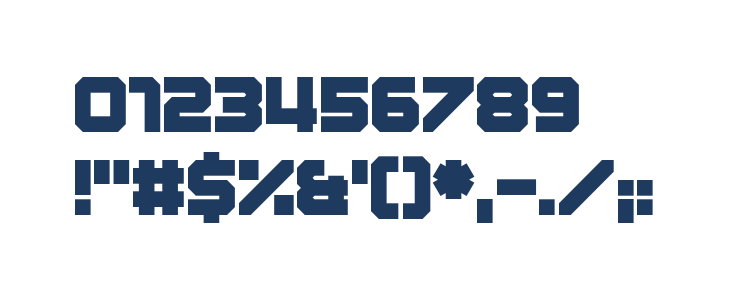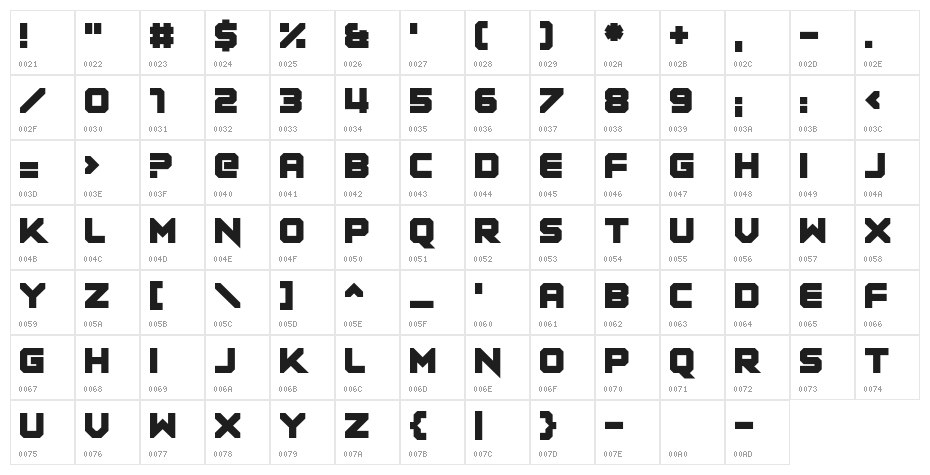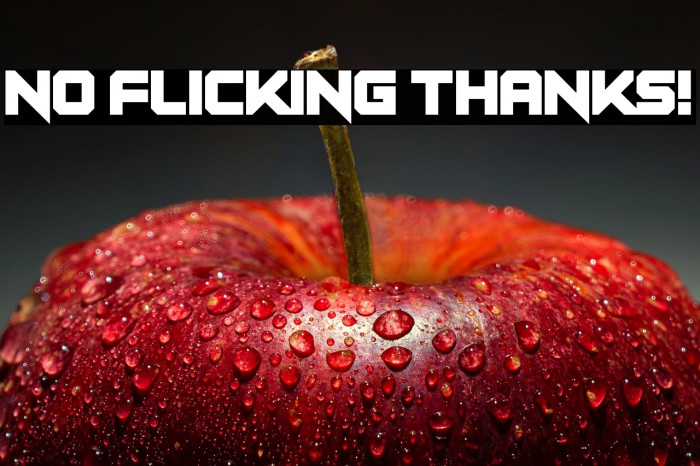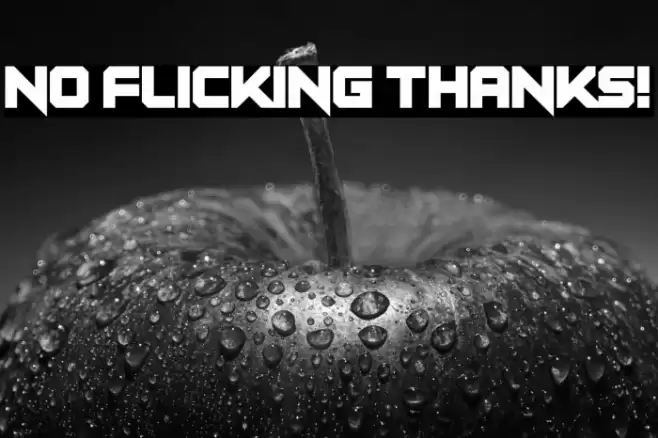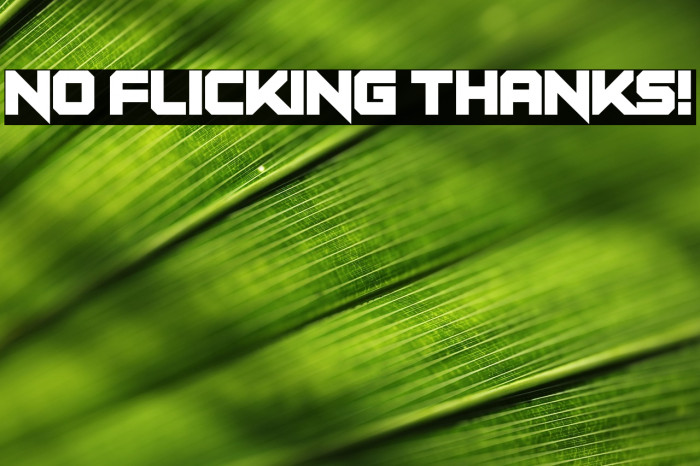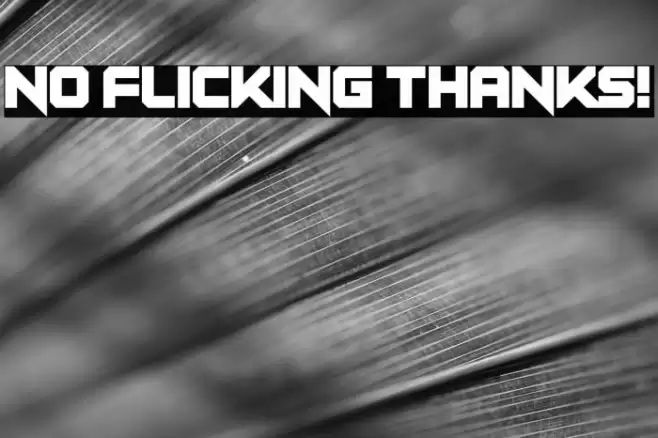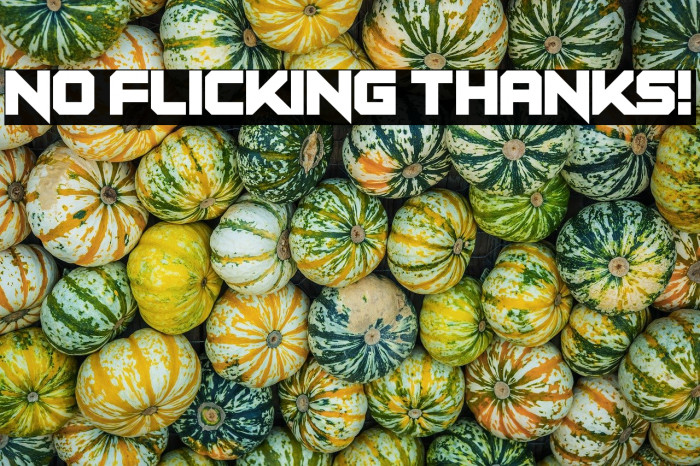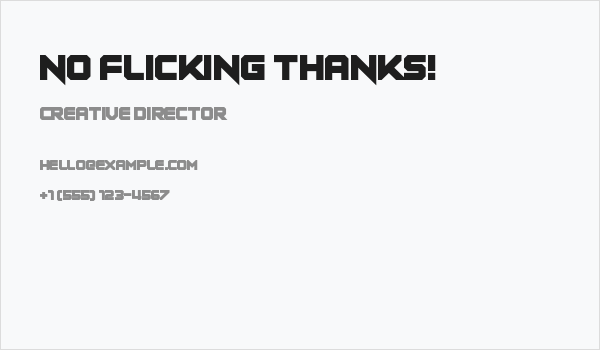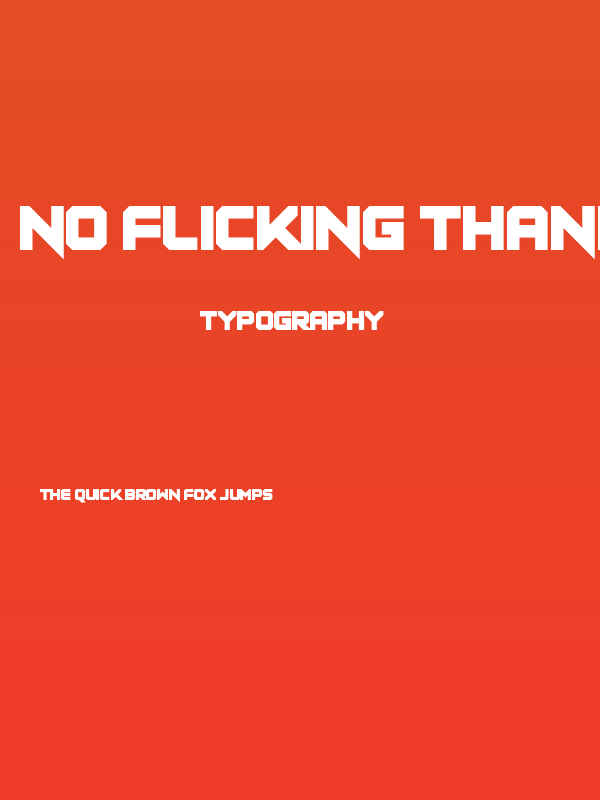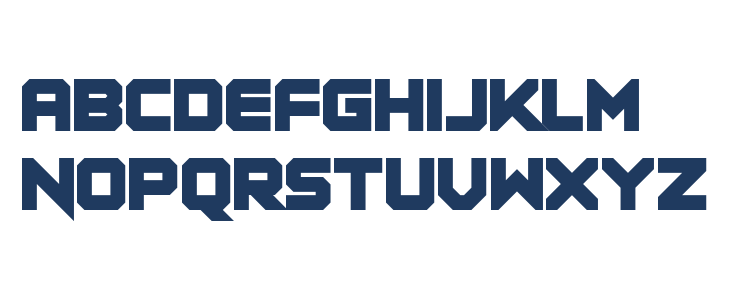
No Flicking Thanks! Font
No Flicking Thanks! Description
This font features a bold and geometric design with a strong presence. The characters are constructed with sharp angles and straight lines, giving it a futuristic and industrial feel. The uppercase letters are uniform in height, while the numbers and special characters maintain the same boldness, ensuring consistency across all characters. The font's blocky nature makes it highly legible from a distance, making it suitable for impactful designs. Its unique style is eye-catching and can be used to convey strength and modernity.
Proposed ProjectsIdeal for branding, posters, video game graphics, and any project requiring a strong, modern aesthetic.